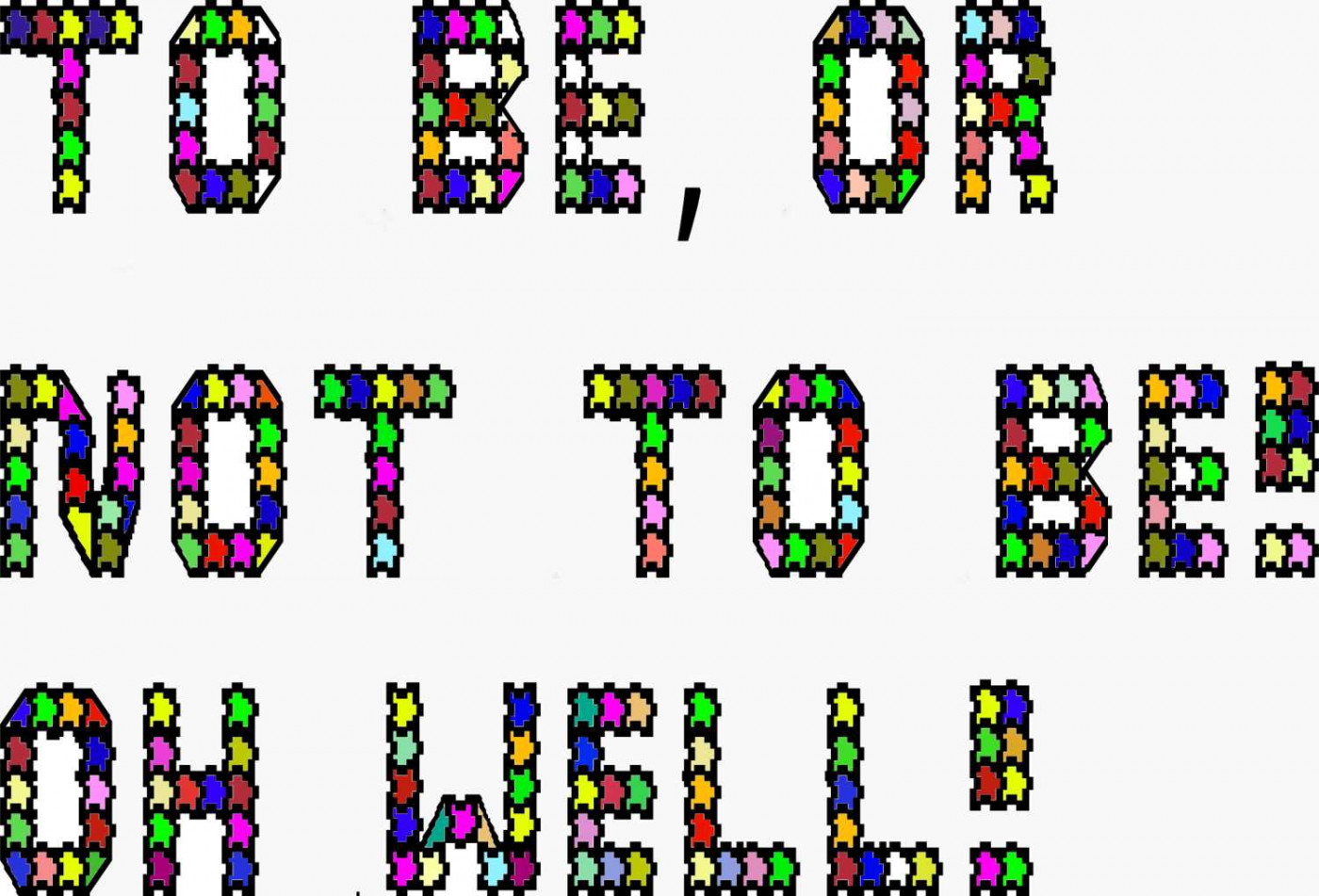
• Well, I'm done. I have to quit on this. However, it's a really, really big font.
It's for paint and drawing graphic software. It's based on tesselation.
It's a bit tricky, but I can get it to work on inkscape (maybe other vector graphic software works, I don't know). Then save the design as a png or jpg, and import the design into a paint software, such as Krita. Then you can use the paint tool to fill up each segment to make a colorful banner or something.
I think this is a reasonable attempt!
Glad to hear from you, welcome back! This font has a very interesting idea. You need to work more on glyphs like M, N, V, Y, Z and few others, and we're also waiting for numbers and such. IMHO, it's a very thought-provoking font concept. Keep on.